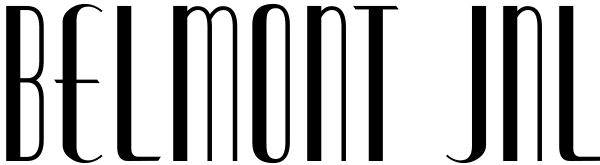
Belmont JNL
Belmont JNL is named for an avenue in the Bronx, New York famous for once being the location of the Belmont Estate, which was the home of the Lorrillard tobacco family. The Art-Deco-era hand lettering from some vintage sheet music is the basis for...